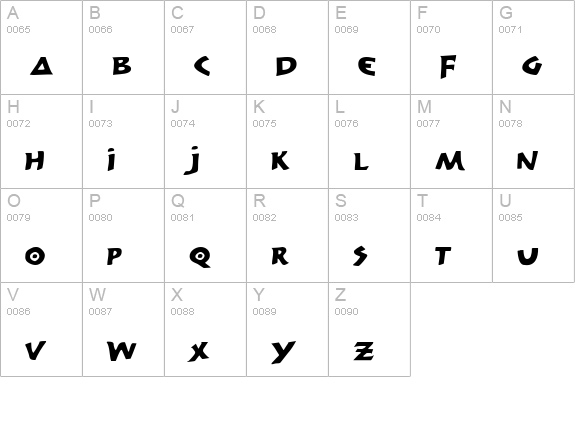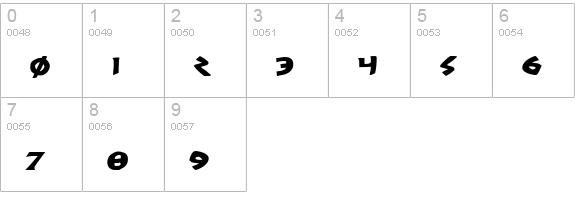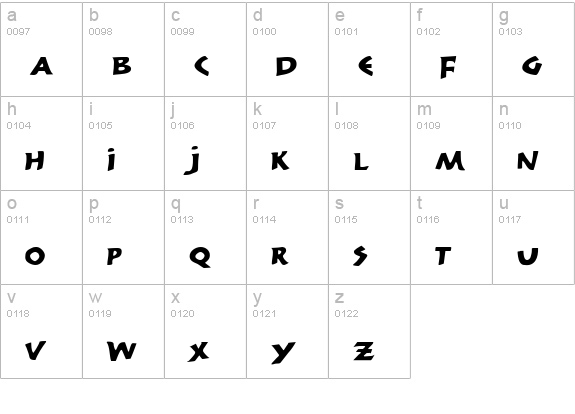
300 Trojans Expanded is a distinctive, extended-width variant in the 300 typeface family \xE2\x80\x94 well suited to design and typography projects.
Introducing 300 Trojans Expanded font, a stunning display typeface that exudes elegance and sophistication. With its sleek lines and modern aesthetic, this font is perfect for a wide range of design projects, from branding to editorial design. What sets 300 Trojans Expanded font apart is its versatility and bold presence, making it a standout choice for creating eye-catching headlines, logos, posters, and more. Whether you're looking to make a statement or add a touch of luxury to your designs, this font has you covered. And the best part? 300 Trojans Expanded font is available for free download at FontsMarket.com. So why wait? Elevate your designs with this timeless and impactful font today!